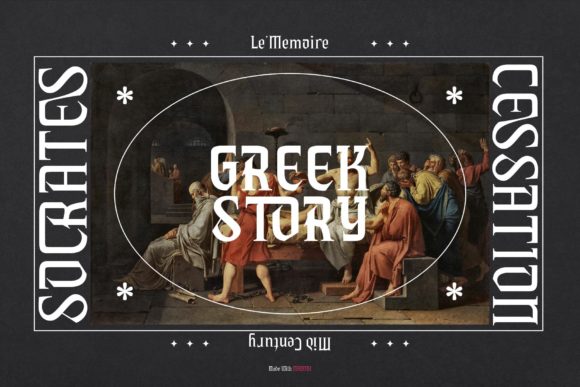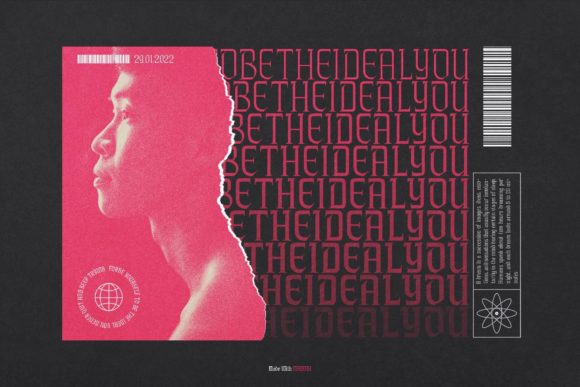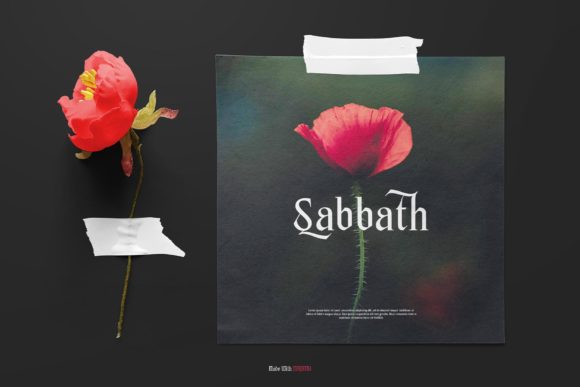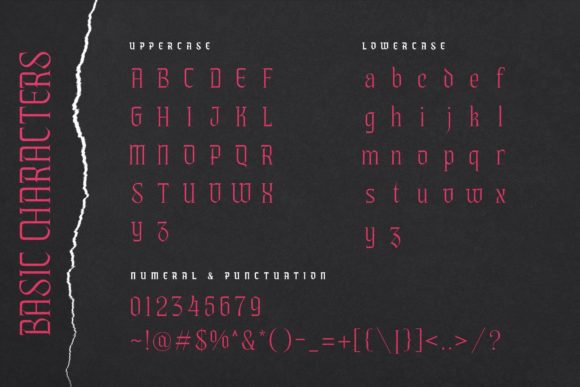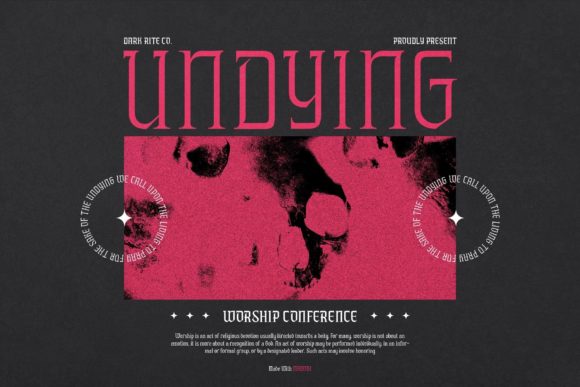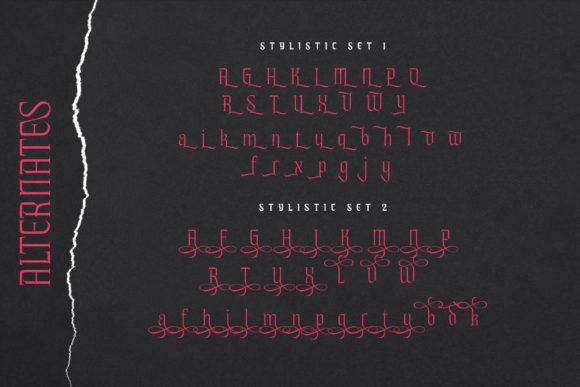
Introduction to Maboth Font
Have you ever been working on a creative project and stumbled upon the perfect font, only to realize it’s missing that one special something to make it truly stand out? For designers, finding the right font can be a game-changer, elevating an entire design from good to great. And that’s exactly what the Maboth Font offers – a touch of elegance and sophistication that’s sure to leave a lasting impression.
As a highly detailed blackletter font, Maboth is a valuable addition to any design resource. Its intricate designs and ornate details make it perfect for creating high-quality, visually striking designs. With its transparent background, Maboth Font can be easily added to your favorite creations, allowing you to unlock its full potential and create truly unique designs.
Key Features of Maboth Font
- Unique, hand-drawn design with a touch of elegance and sophistication, making it perfect for creative projects.
- Features a transparent background, allowing for seamless integration with other design elements.
- High-quality design with a resolution of 300 DPI, ensuring crisp and clear text display.
- Available in 2 font styles: Regular and Bold, providing versatility for different design needs.
- Perfect for use in creative projects, such as logo design, typography, and branding, where a unique and stylish font is required.
Honest Review: Maboth Font
One of the things that I appreciated about the Maboth Font is its high quality. The characters are crisp and well-defined, making it perfect for use on transparent backgrounds. This feature is particularly useful when designing digital products or creating graphics for websites.
Here are some of the things that I liked about the Maboth Font:
- ✨ High-quality characters with a modern feel
- ✨ Versatile design that works well for both digital and print projects
- ⚠️ Limited character set, which may not be suitable for projects that require a wide range of characters
- ⚠️ May not be suitable for use in small font sizes, as the characters can appear blurry
Overall, I was impressed with the Maboth Font and would recommend it to designers looking for a high-quality, free design resource. However, it’s essential to consider the limitations and ensure that it meets the needs of your project.
Tips for Getting the Most Out of the Maboth Font
Use the Maboth Font on a transparent background to create a seamless design. Experiment with different font sizes and styles to add visual interest to your project. The Maboth Font is a high-quality design resource that can elevate your creative project and make it stand out.
Common Use Cases for the Maboth Font
The Maboth Font is a versatile design resource that can be used in a range of creative projects, including presentations, documents, and social media graphics. It’s a great choice for anyone looking for a high-quality, unique font that can add a touch of sophistication to their design.